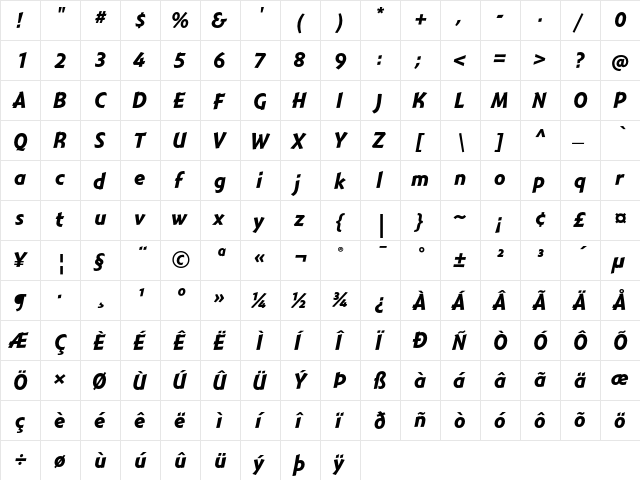
Montara Bold Italic
| Designer | Jim Parkinson |
Design Context for Montara Typeface
Montara offers clean, dependable letterforms without strong stylistic allegiance, making it a practical choice for designers who need flexibility. Its italic angle brings a sense of urgency and motion to the letterforms. The heavy weight commands attention and anchors typographic hierarchies.
Pro Tip: Try Montara for annotation and caption copy alongside an upright companion — the contrast in angle creates a dynamic but ordered typographic system.